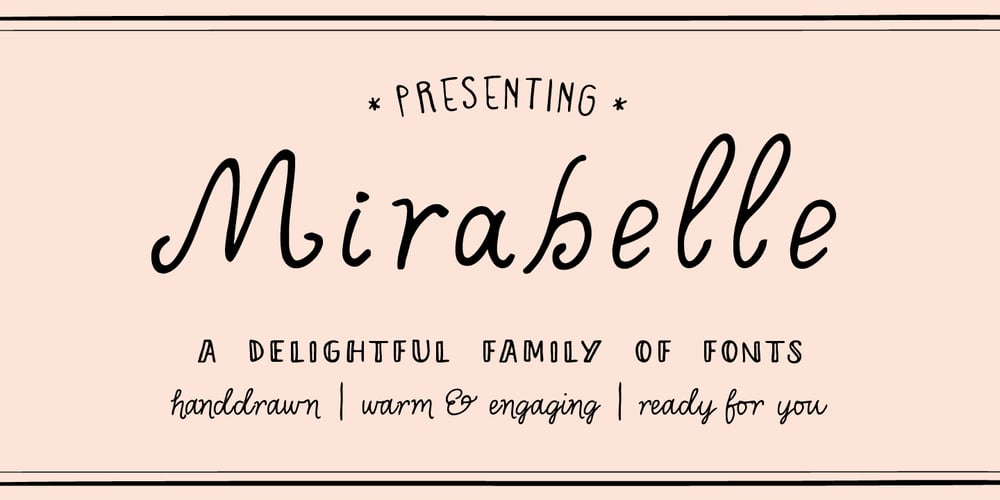
Mirabelle
Mirabelle font
Mirabelle Font Family was designed by Jessica McCarty and published by Magpie Paper Works. Mirabelle contains 4 styles and family package options. Mirabelle from Magpie Paper Works is a family of four hand-lettered fonts designed to coordinate with each other or stand alone as display faces. Each font was created with a felt-tipped pen & ink, and includes a full set of capital and lowercase letters, as well as multi-lingual support, currency figures, numerals, and punctuation.